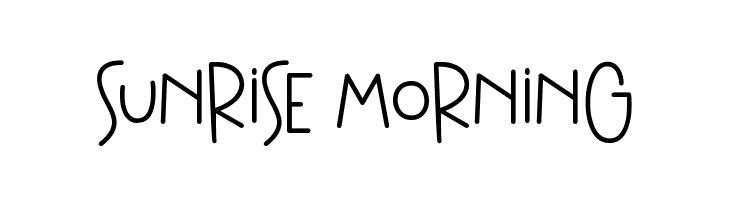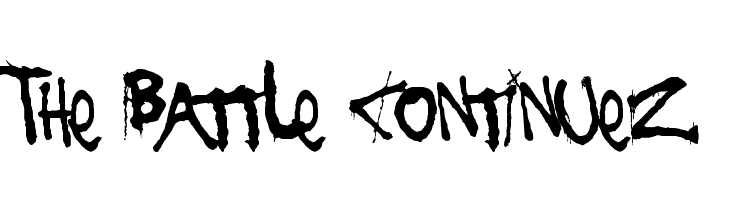
A bold, decorative font with rounded edges and intricate geometric patterns.
An elegant, flowing script font with a cursive, handwritten style.
A bold, halftone-patterned font with a modern and retro vibe.
A bold, striped font with a modern, industrial aesthetic.
An elegant and ornate script font with flowing letterforms and decorative swashes.
A playful, whimsical script font with flowing, interconnected letters and bold numerals.
A playful, bold font with a 3D effect and rounded, shadowed letters.
A graceful, handwritten script font with a fluid and elegant style.
A playful, outlined font with a cartoonish, hand-drawn style.
An elegant script font with ornate, flowing letterforms and decorative swashes.
A bold, vintage-style font with rugged outlines and a distressed look.
Intricate, kaleidoscope-like symbols with geometric patterns.
Ornate font composed of intricate historical illustrations for each character.
A futuristic, angular font with a geometric design.
A thin, handwritten font with a casual and organic style.
A playful, casual handwritten font with smooth, flowing curves.
A bold, horror-themed font with jagged, distressed edges.
A decorative and intricate font with swirling, organic shapes.
A bold, playful font with rounded edges and a friendly appearance.
A bold, decorative font with unique uppercase flair and consistent lowercase design.
An elegant script font with flowing, interconnected strokes and luxurious flourishes.
A bold, hand-drawn font with a distressed, textured appearance.
A bold, decorative font with intricate, retro-inspired patterns.
A bold, flowing script font with a playful and elegant style.
A decorative, mechanical-inspired font with intricate gear and line patterns.
A bold, angular font with a futuristic and dynamic style.
A bold, angular font with a modern, edgy design.
设计师偏爱 RodgauerTwoRounded-Medium, SakiraScript, Onnenmyyra, Astakhov Access Degree ADL and Marchell,因为其造型干净、适用范围广—— 从品牌识别到落地页、海报都能胜任。